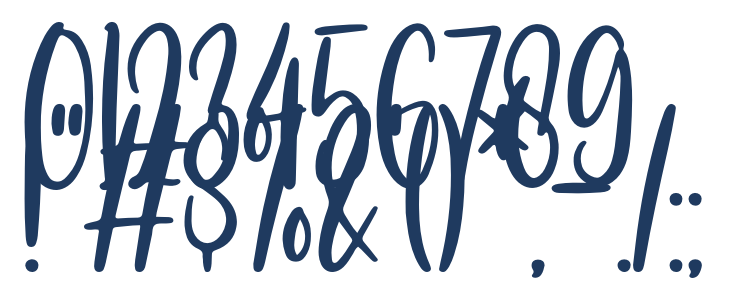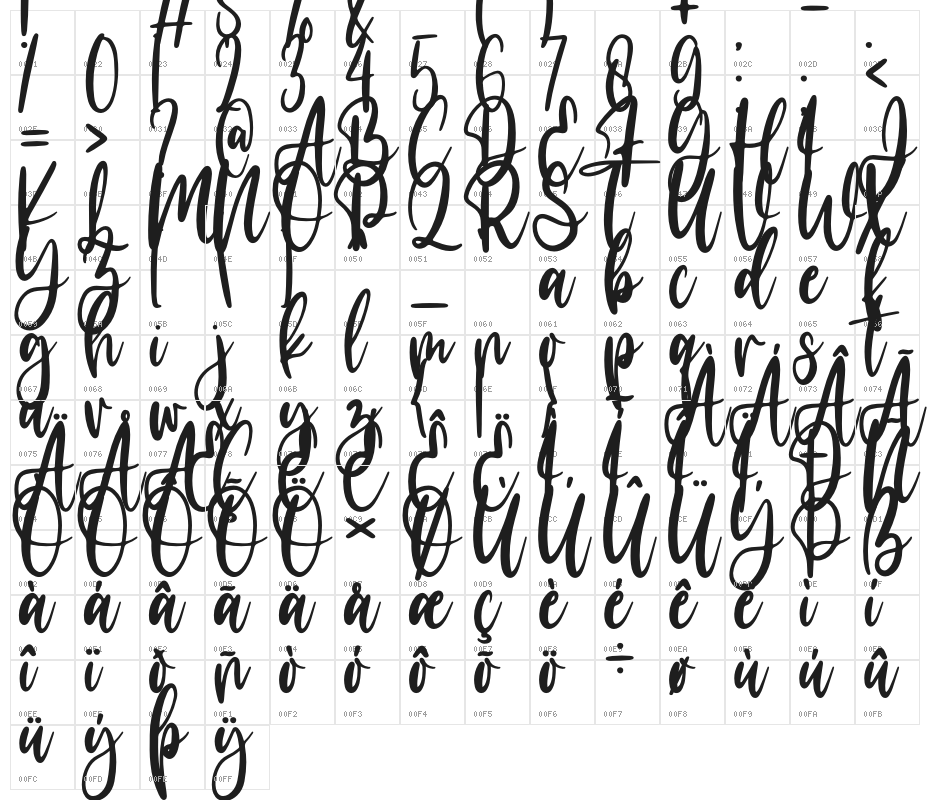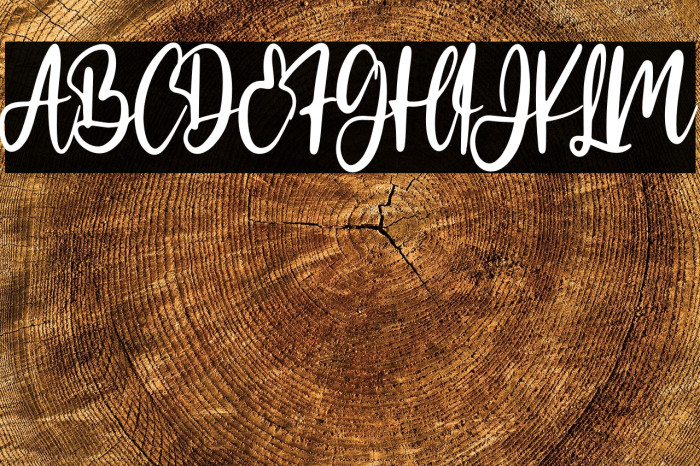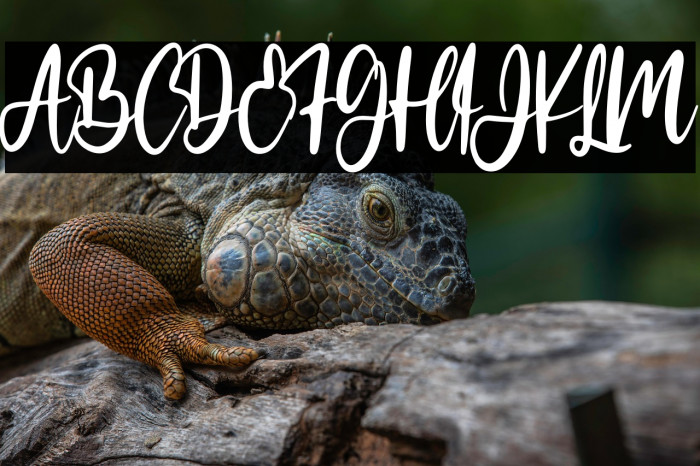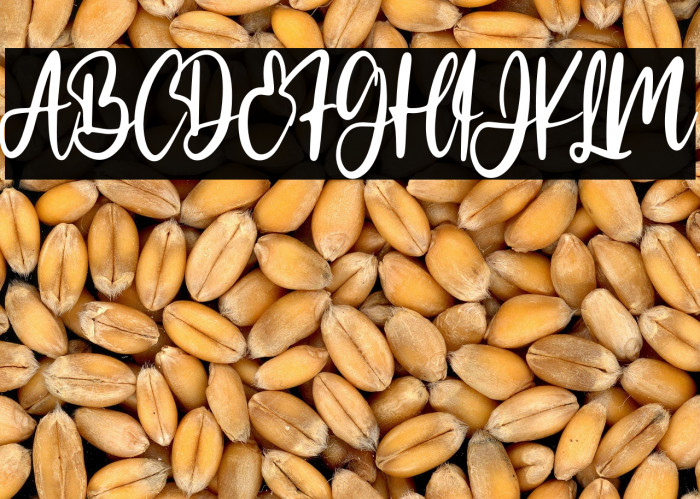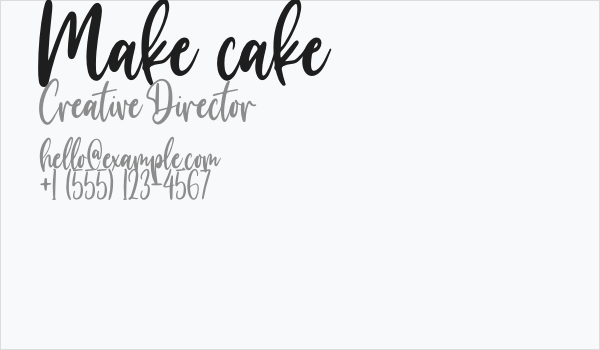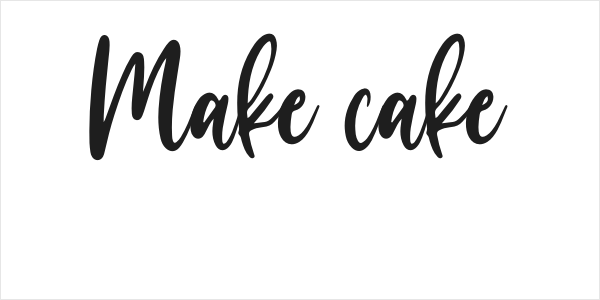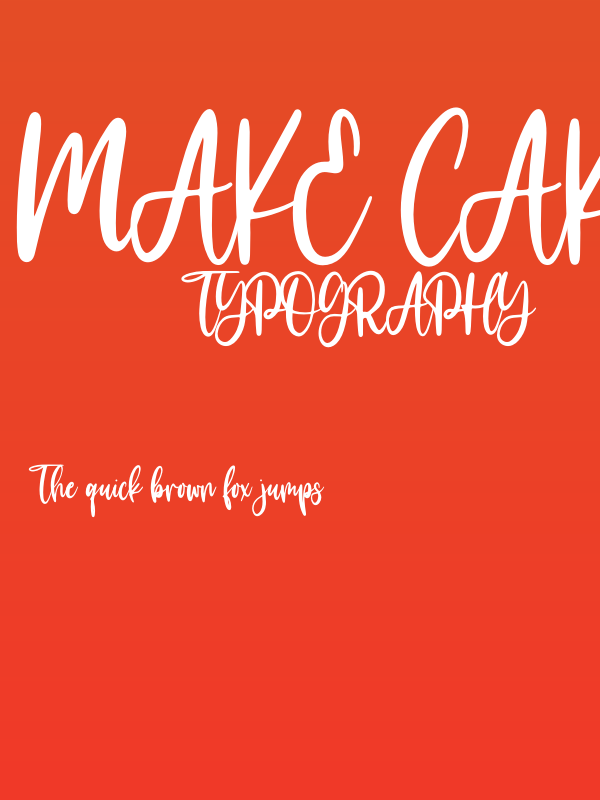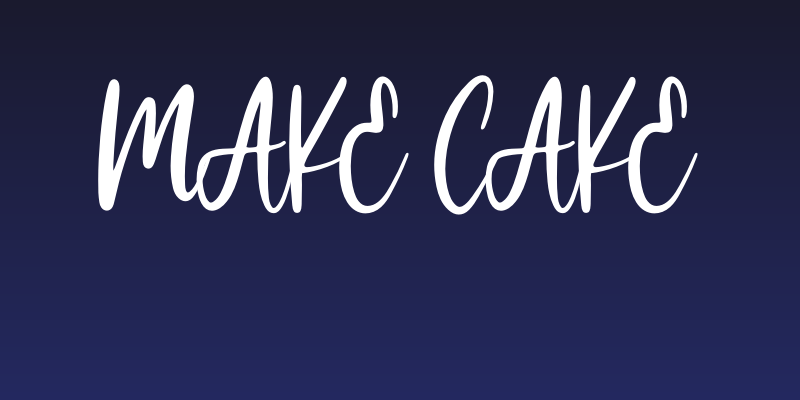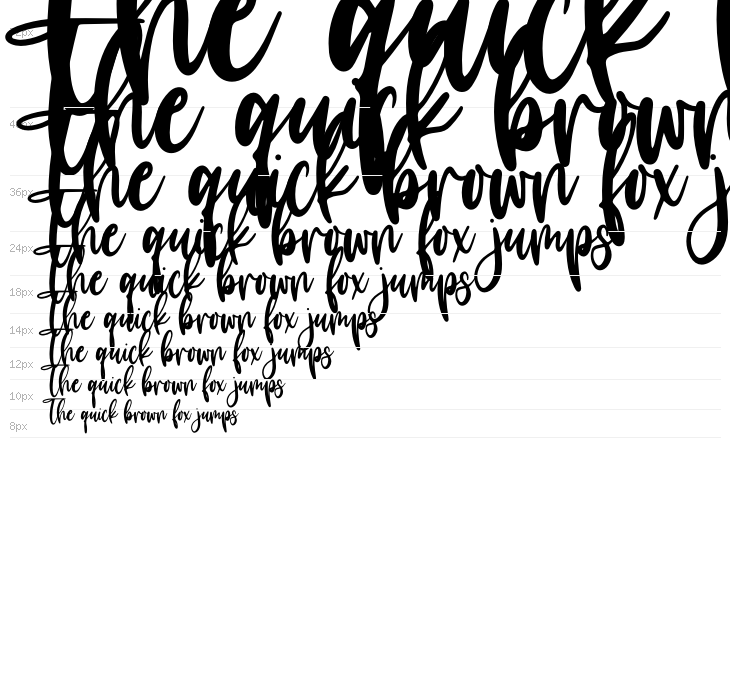
Make cake Font
Make cake Description
This font features a lively and flowing script style that mimics the fluidity of natural handwriting. The characters are interconnected, creating a seamless and elegant appearance. The strokes are bold and confident, with a consistent thickness that adds to its legibility. The uppercase letters are slightly larger and more pronounced, while the lowercase letters maintain a smooth and cohesive look. The numbers and special characters are designed to match the overall aesthetic, ensuring a harmonious visual experience. This font exudes a sense of creativity and personal touch, making it ideal for projects that require a handwritten or artistic feel.
| Proposed Projects | Ideal for wedding invitations, greeting cards, personal branding, and creative projects that require a personal touch. |